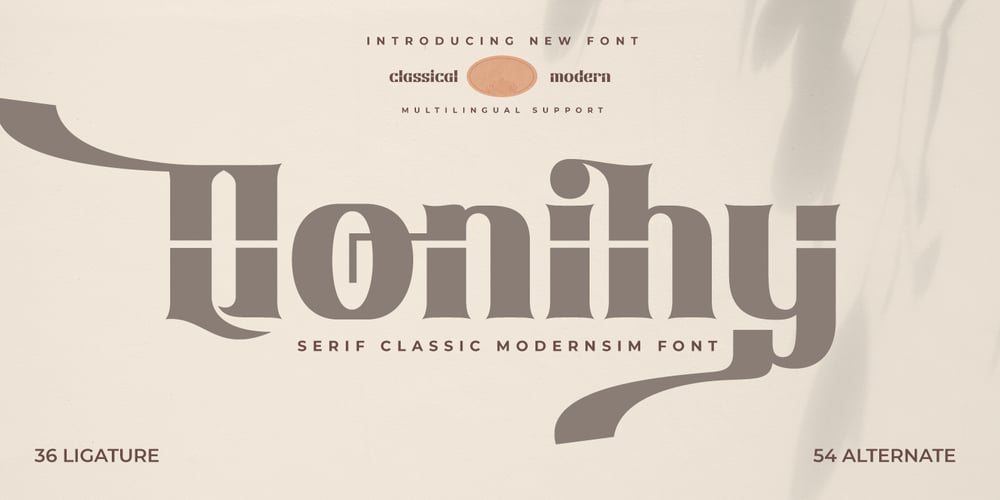
Qonihy
Qonihy font
Qonihy Font Family was designed by Rozikan and published by Twinletter. Qonihy contains 1 styles and family package options. Qonihy is a modern serif typeface that is ideal for projects that require a classic yet contemporary look. Its characteristics allow you to express your creativity.Every character in Qonihy is meticulously designed, with precise and elegant lines that give the impression of luxury and professionalism. This font is appropriate for a wide range of design demands, including book designs, logos, and product packaging.Qonihy’s combination of narrow and bold serifs creates a strong and dominant impression while remaining easy to read. With the available character alternatives, you can easily customize the appearance of your text and make your projects more creative and unique.Qonihy’s multilingual support allows you to easily reach a worldwide audience and deliver your content in many languages. So, if you want to create visually appealing and elegant projects, Qonihy is the way to go.What’s Included :- File font- All glyphs Iso Latin 1- Alternate, Ligature- Simple installations- We highly recommend using a program that supports OpenType features and Glyphs panels like many Adobe apps and Corel Draw so that you can see and access all Glyph variations.- PUA Encoded Characters – Fully accessible without additional design software.- Fonts include Multilingual support